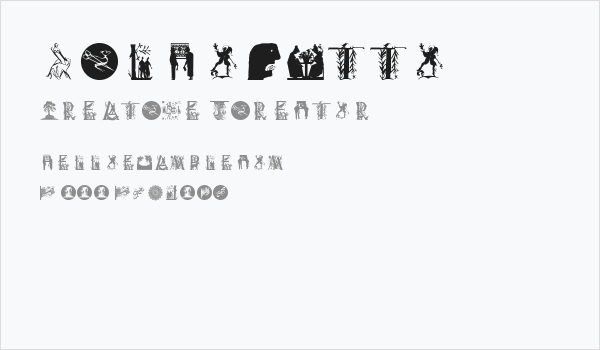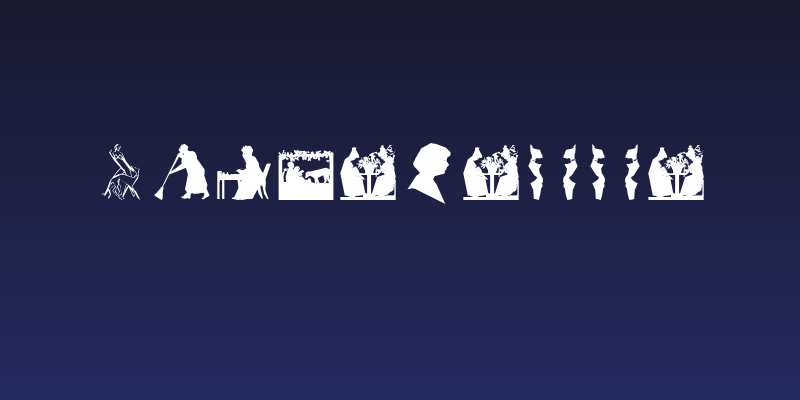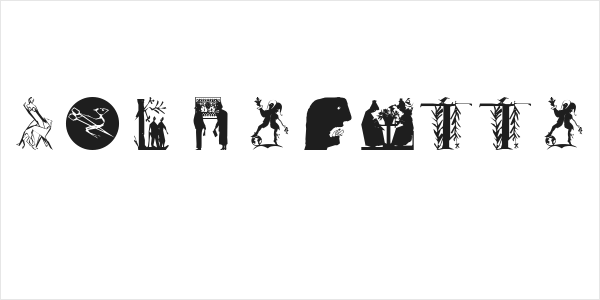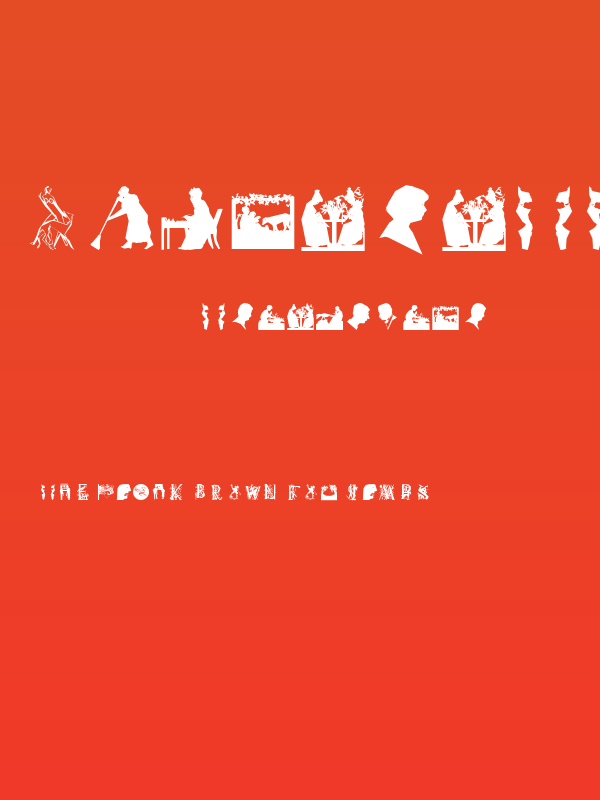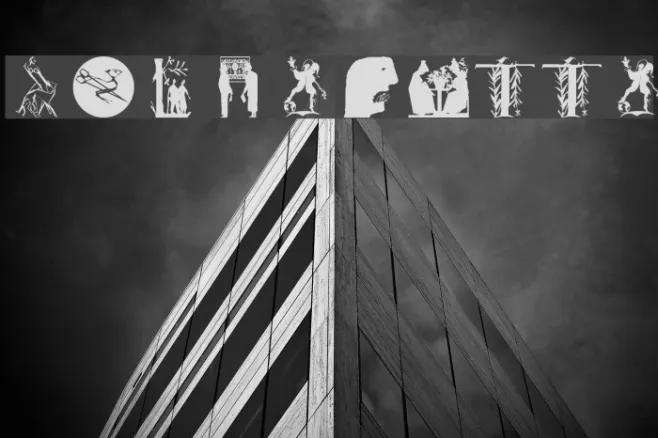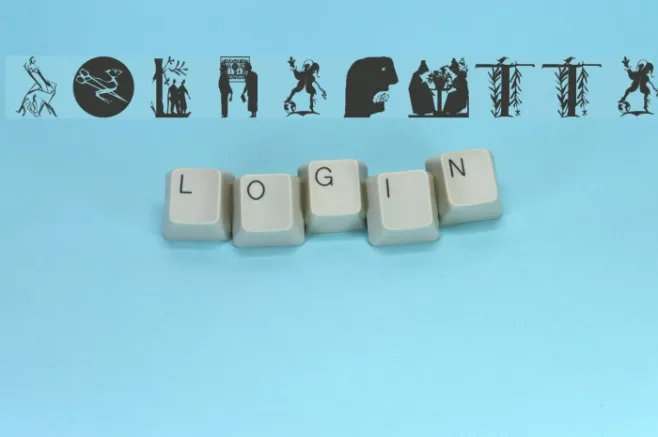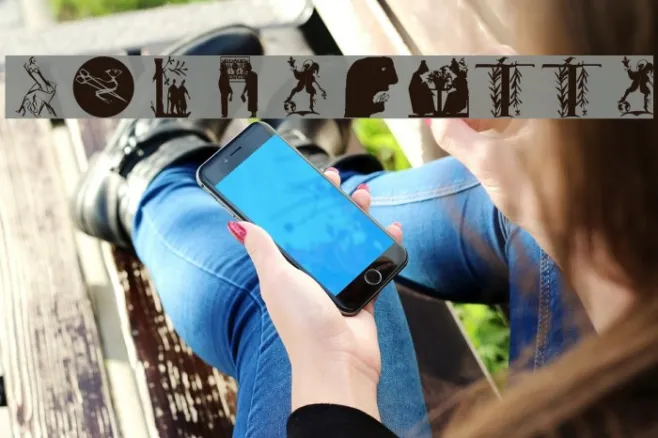
SilhouOtto Font
SilhouOtto Description
This font is a highly decorative and artistic typeface that incorporates intricate silhouettes within each letter. The characters are filled with detailed scenes and figures, creating a unique visual experience. Each letter is a work of art, featuring elements like people, nature, and abstract designs. The font is not designed for readability in large bodies of text but rather for artistic and decorative purposes. Its complex design makes it suitable for projects where visual impact is more important than legibility.
| Proposed Projects | Ideal for artistic projects, posters, album covers, and any design work where a decorative and unique typeface is desired. |